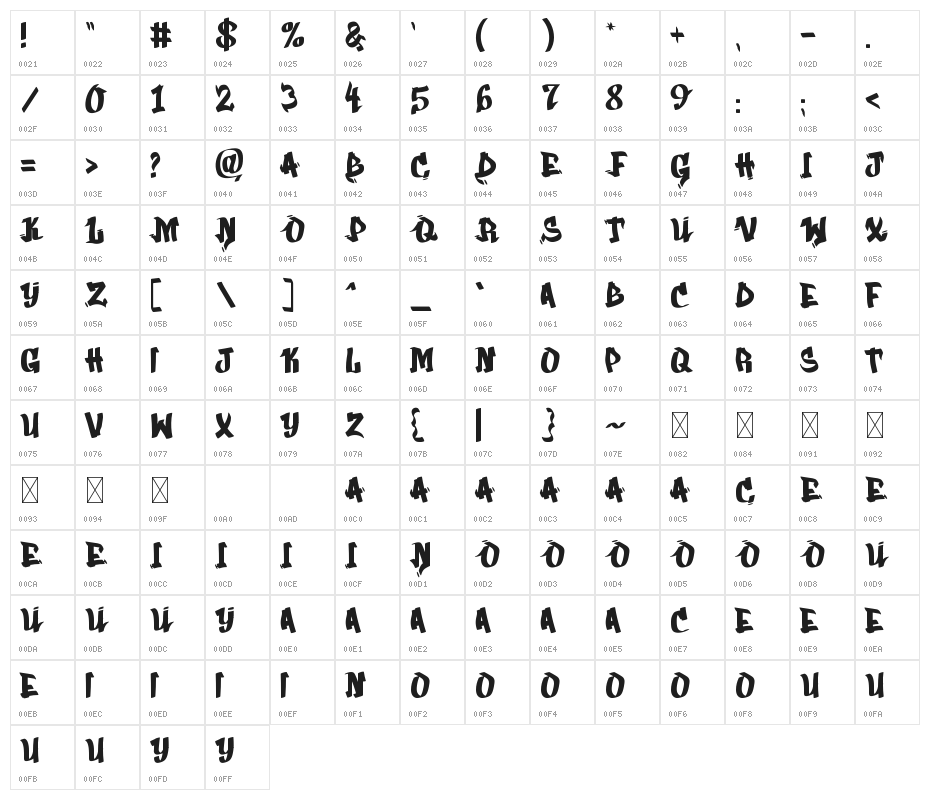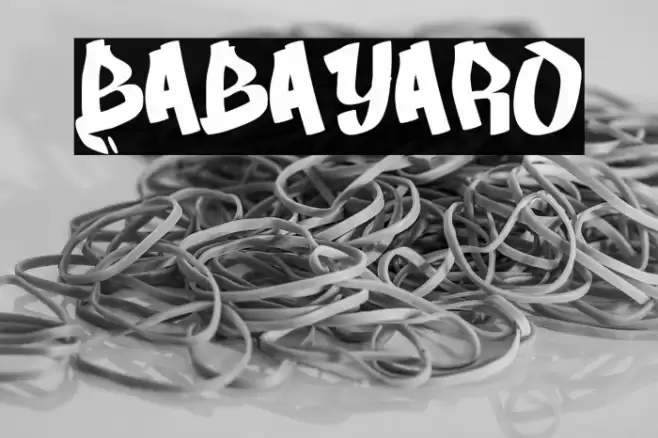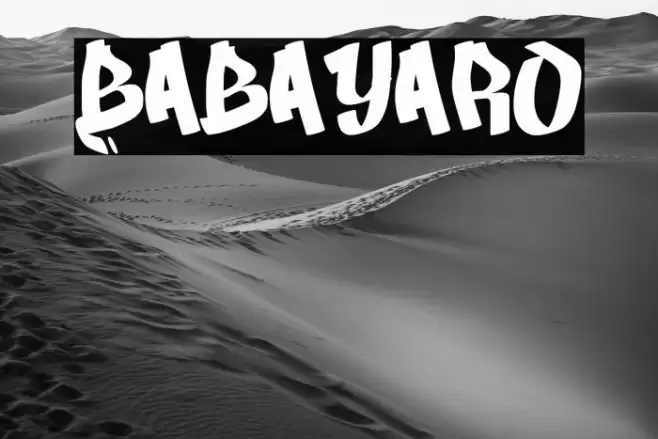
Babayaro Font
This bold and dynamic font features a graffiti-inspired style with sharp, angular edges and a playful, rebellious flair. The uppercase and lowercase letters maintain a consistent thickness, creating a strong visual impact. The numbers and special characters follow the same energetic design, making the font suitable for attention-grabbing headlines and creative projects. Its unique style is characterized by a sense of movement and energy, with each character appearing as if it were painted with a brush. The font's boldness and distinctive appearance make it ideal for projects that require a strong, artistic touch.
| Overall Style | Modern, Urban |
| Proposed Projects | Ideal for street art designs, music album covers, posters, and urban-themed branding. |